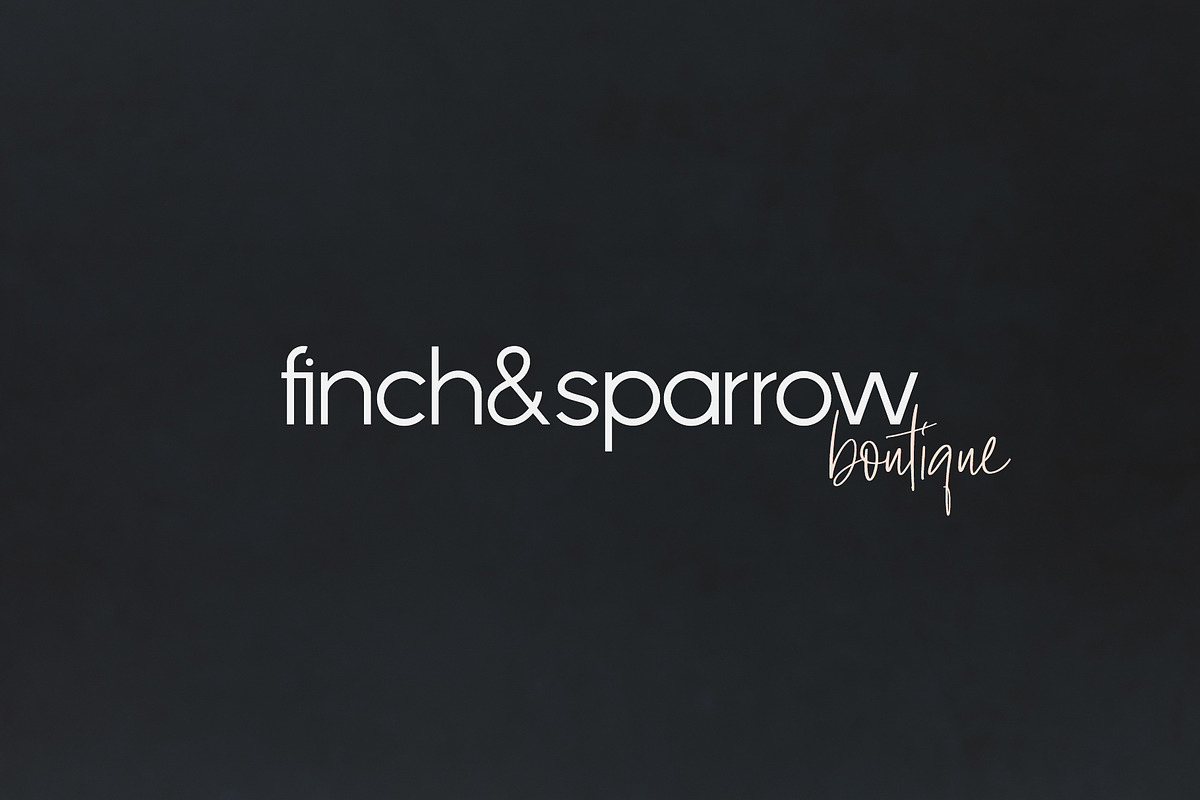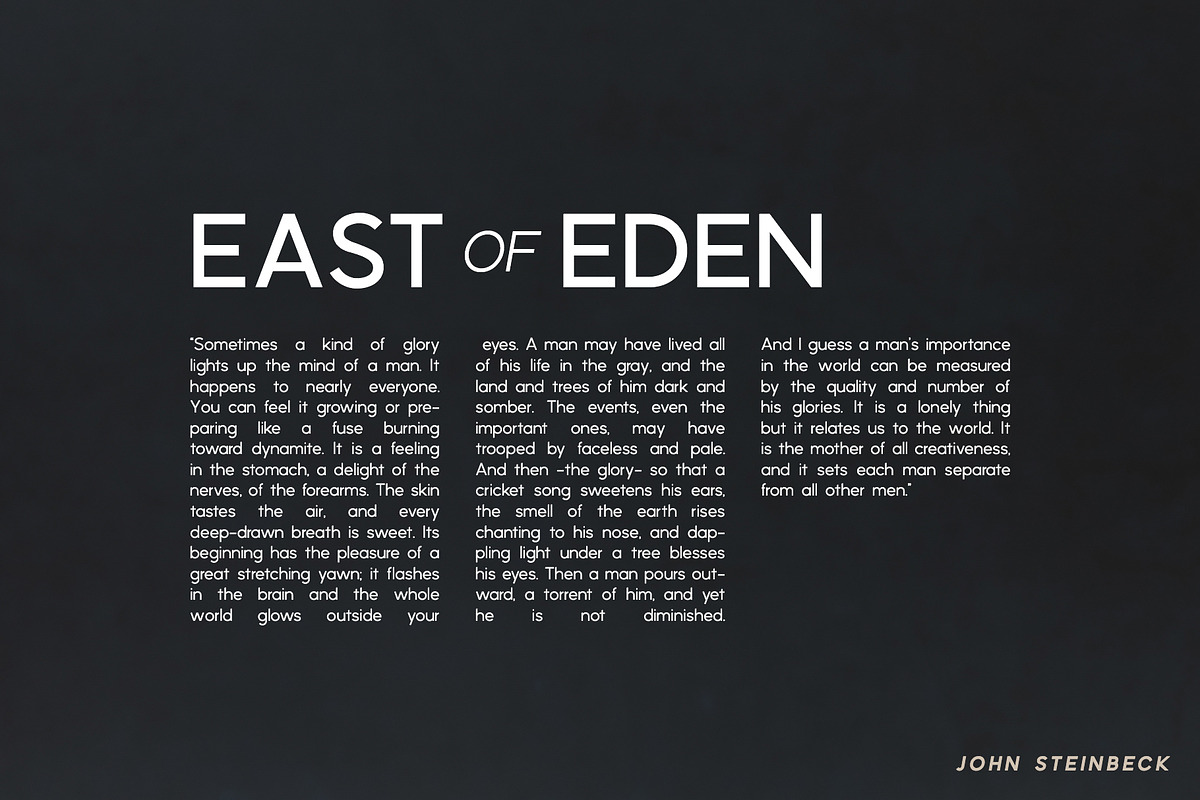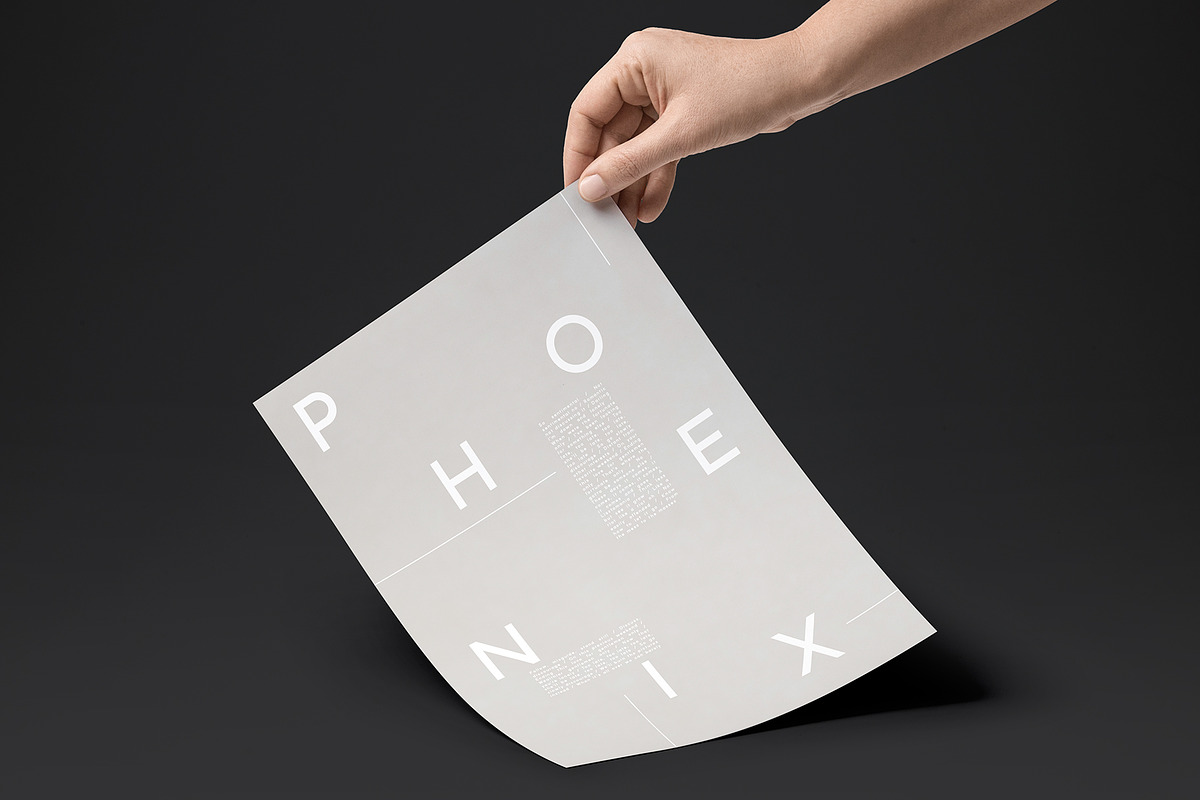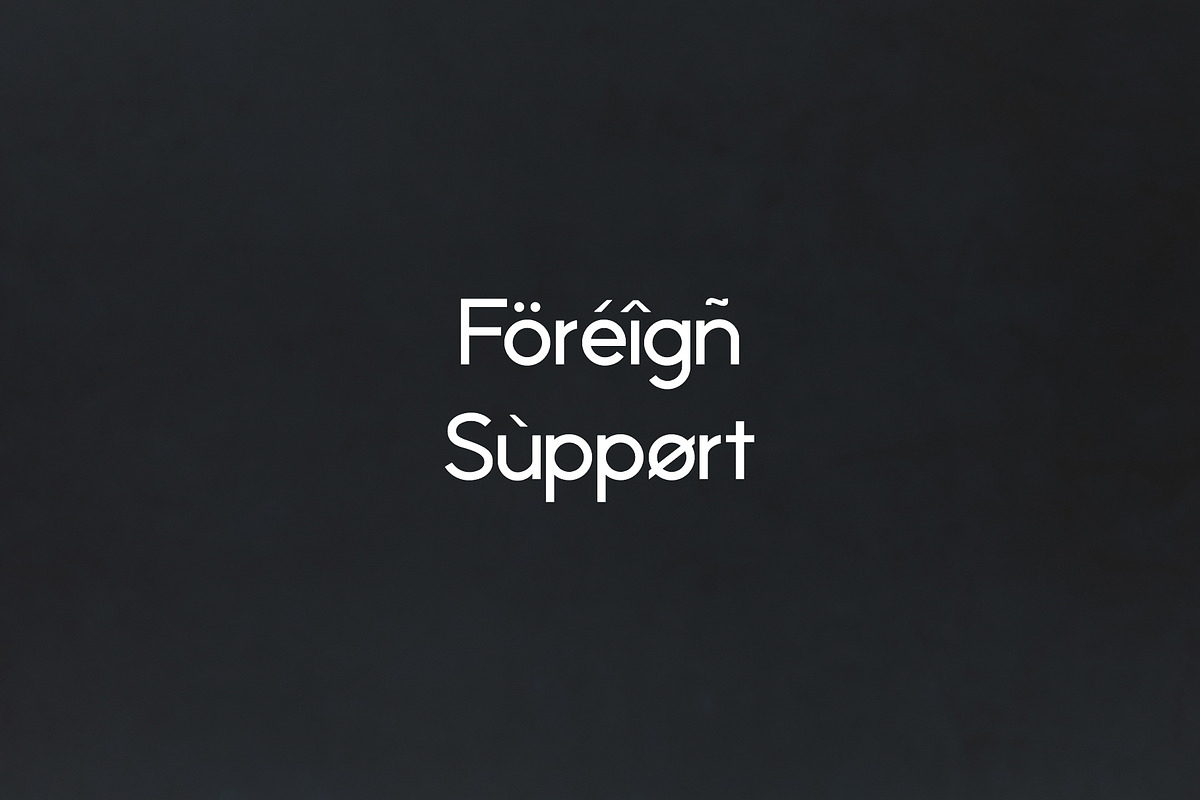
Phoenix | A Multi-Weight Sans
Phoenix is a truly beautiful sans serif that is bold, classic, and sleek. It has by far been the most time-consuming font I've made up until now, but I am SO proud of it and am stoked to finally be able to share it with you all!
With 6 different weights in both Regular and Italic, Phoenix smoothly transitions from Light to Extra Bold, and with 12 total style options will quickly become a staple font for design work of all types!
- 6 Weights in both Regular and Italic
- Non-English support
- "fi" and "ft" ligatures